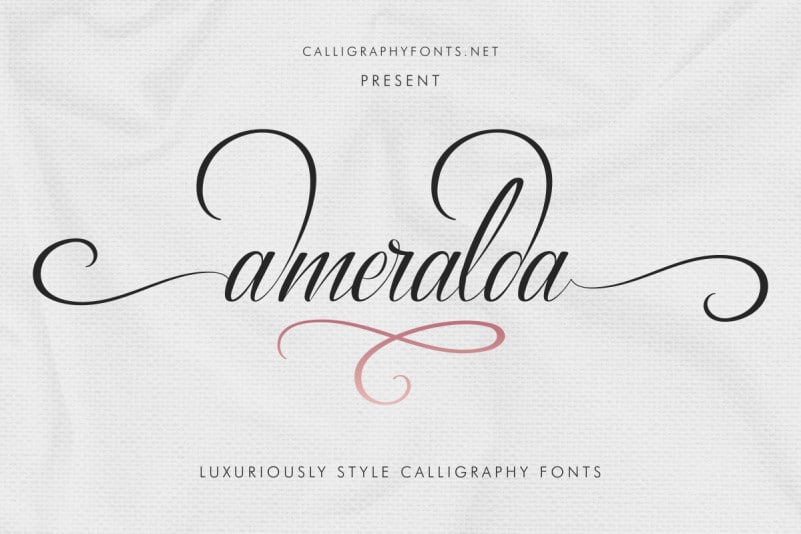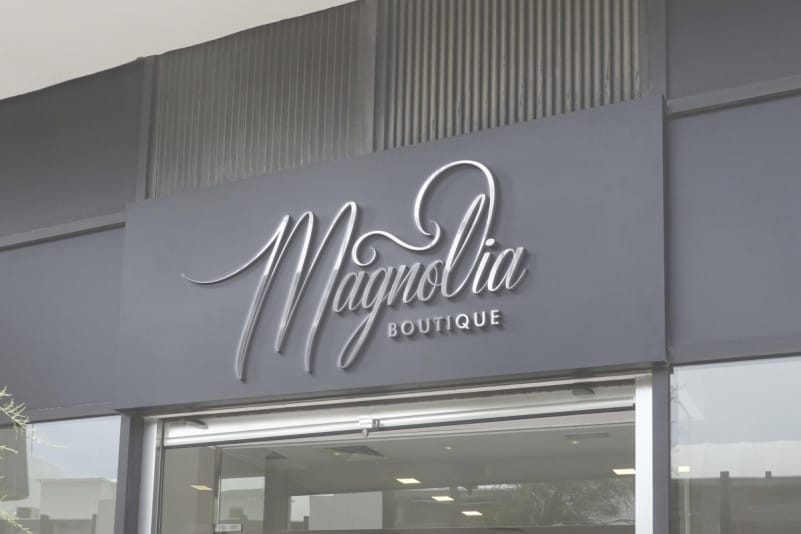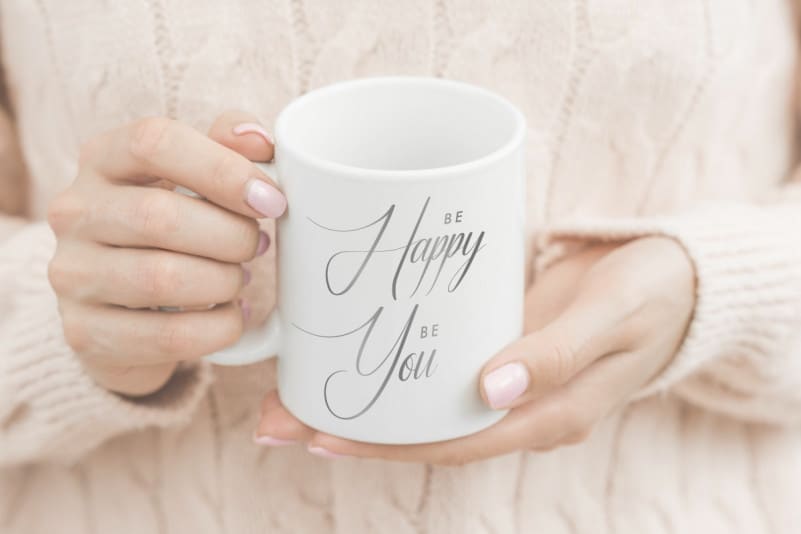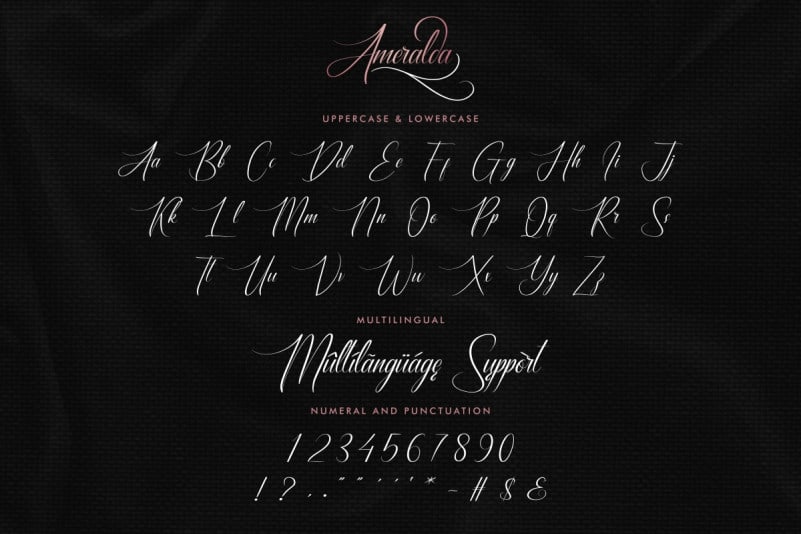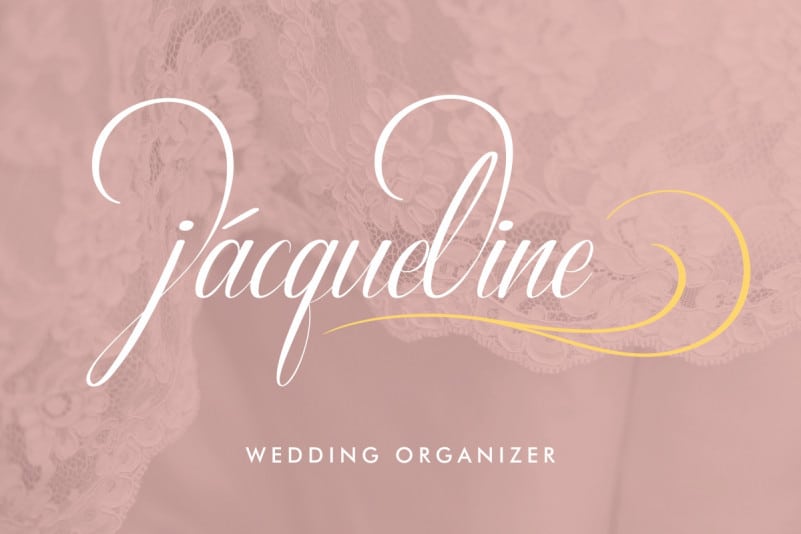
Ameralda Luxurious Calligraphy Script Font
Ameralda Luxurious Calligraphy Script Font is a luxurious Calligraphy script font. The style of this font are elegant, luxury, glamour, modern and sophisticated brush font.